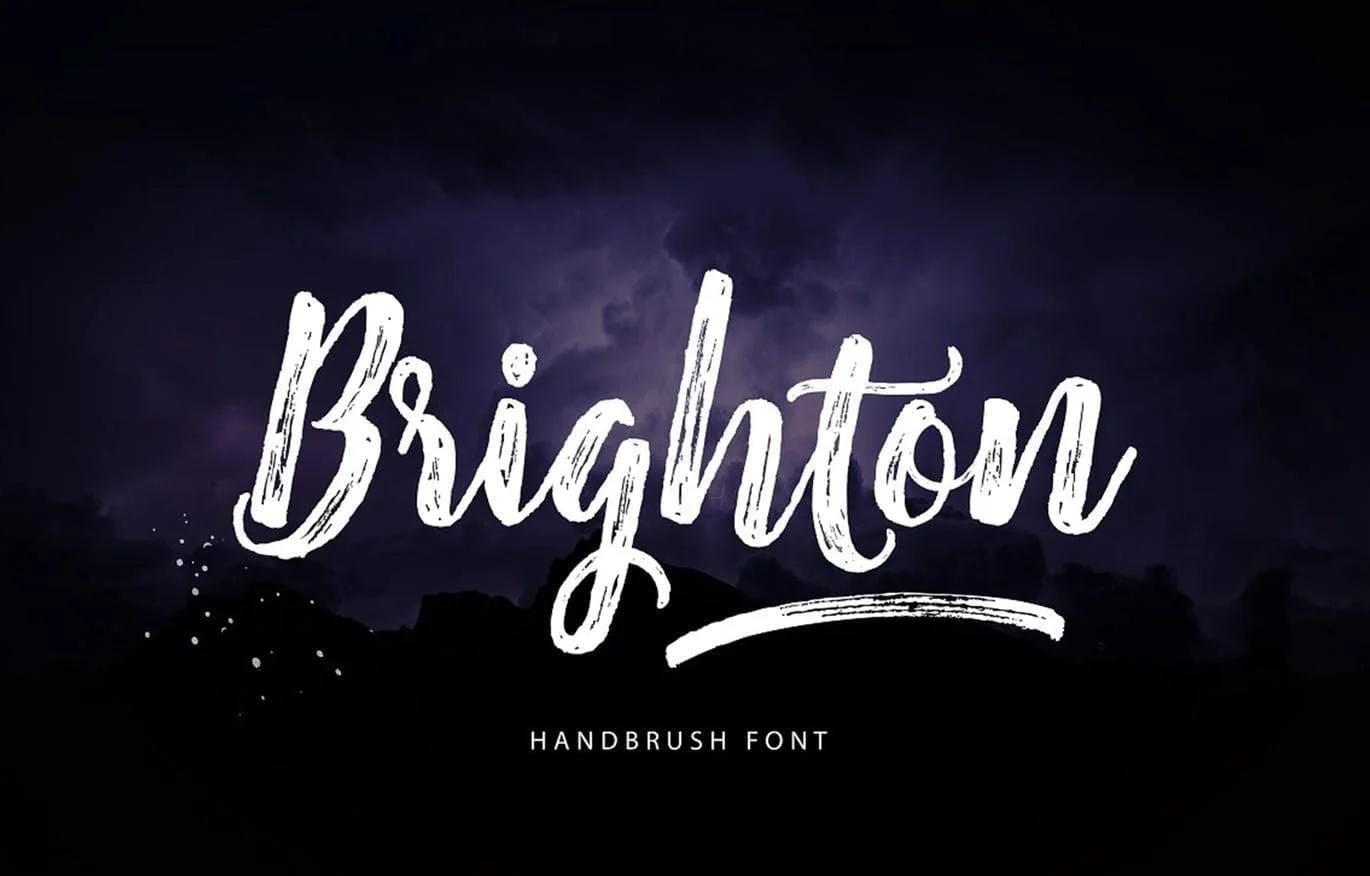
Brighton Script Font is perfect for a wide range of design projects including elegant wedding invitations, handwritten logos, greeting cards, signature designs, romantic branding, luxury packaging, beauty product labels, and sophisticated social media posts. Its flowing script style makes it an ideal choice for projects that require a personal, handcrafted touch.
What makes Brighton Script Font exciting is its authentic handwritten quality that brings warmth and personality to any design. The font features beautifully flowing letterforms with natural variations that mimic real calligraphy, creating an intimate and elegant feel. Its graceful curves and refined details add a touch of sophistication that elevates ordinary designs into extraordinary visual experiences.
Brighton Script Font comes in multiple font families including Regular, Bold, Light, Alternate characters, Swashes, and decorative ligatures. These comprehensive options allow designers to create customized looks and add unique flourishes that enhance the overall aesthetic of their projects.
Whether you're designing romantic stationery, creating an upscale brand identity, or crafting personalized marketing materials, Brighton Script Font Free Download provides the elegant charm and professional quality needed to captivate your audience. The font's versatile nature makes it perfect for both standalone display use and pairing with complementary sans-serif typefaces.